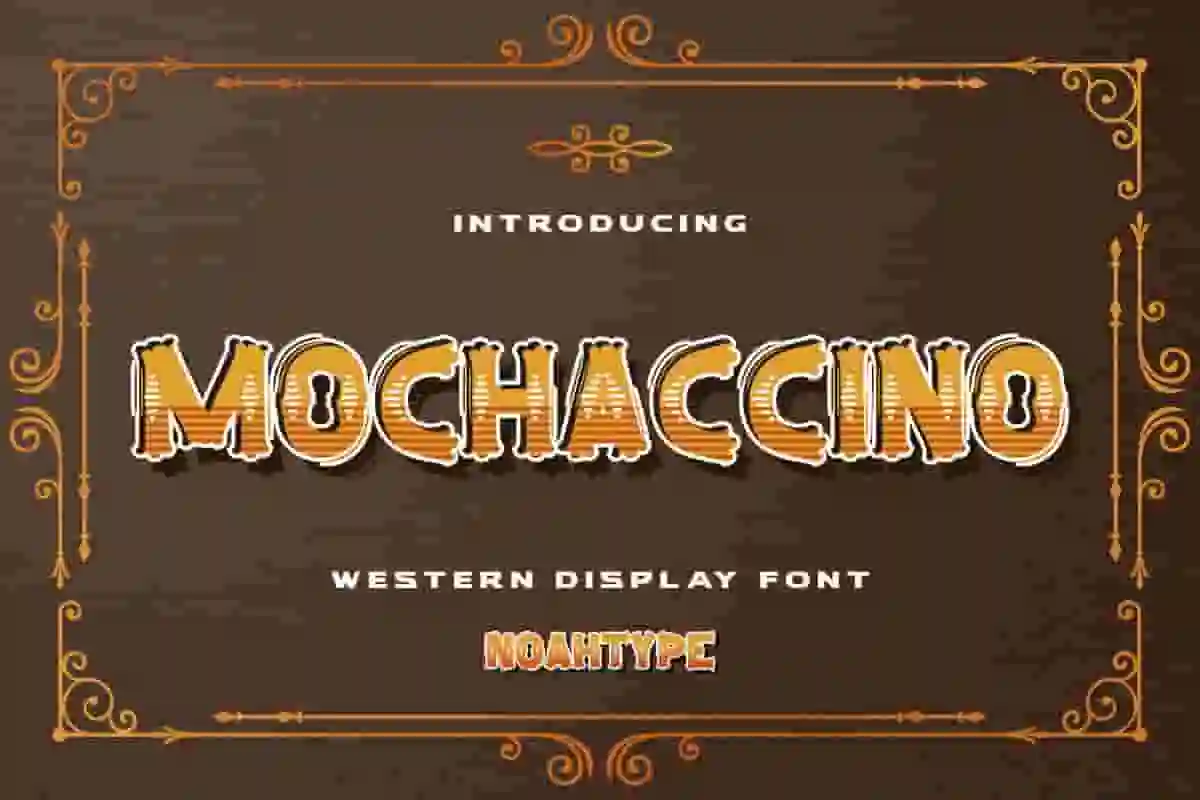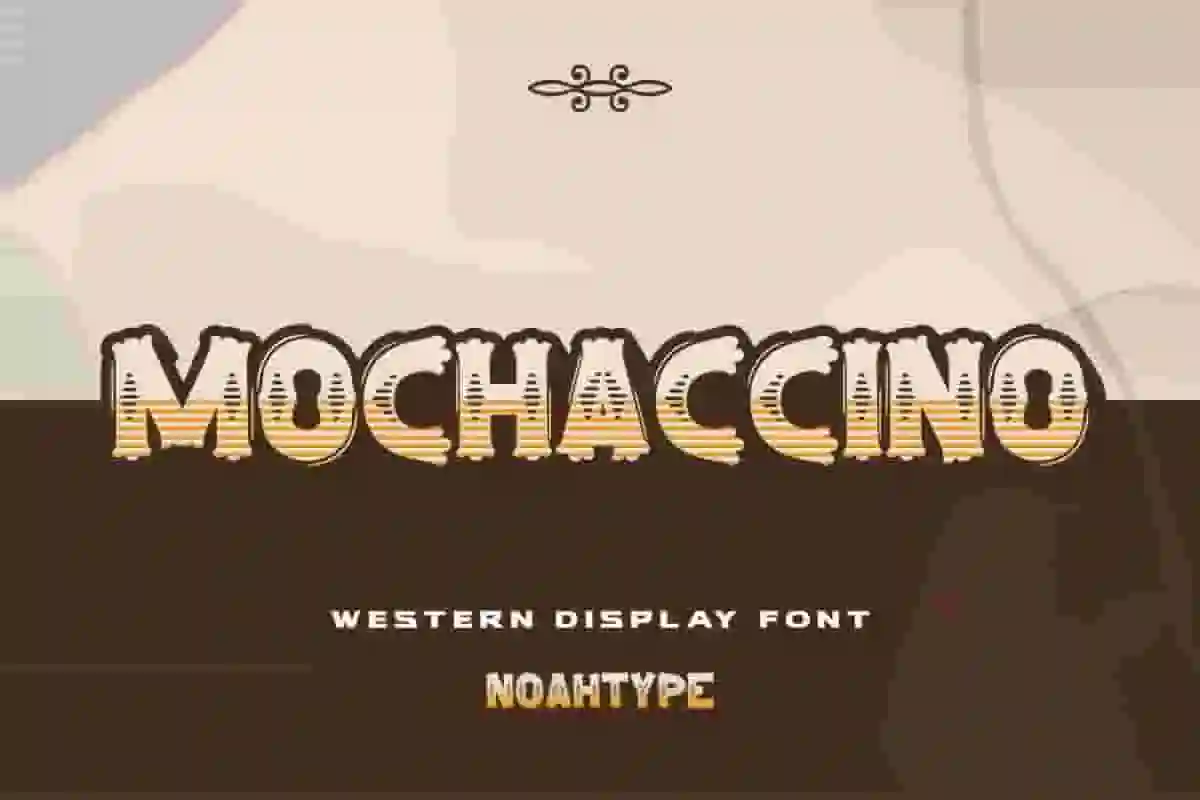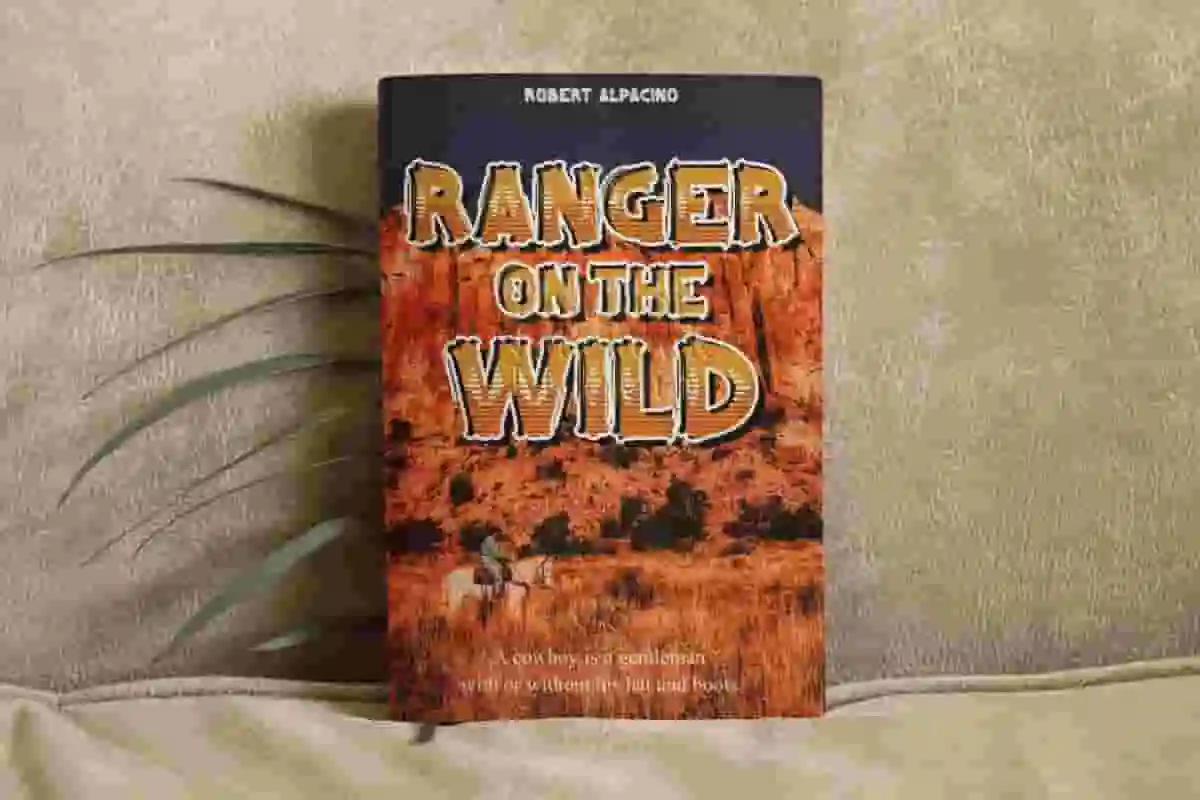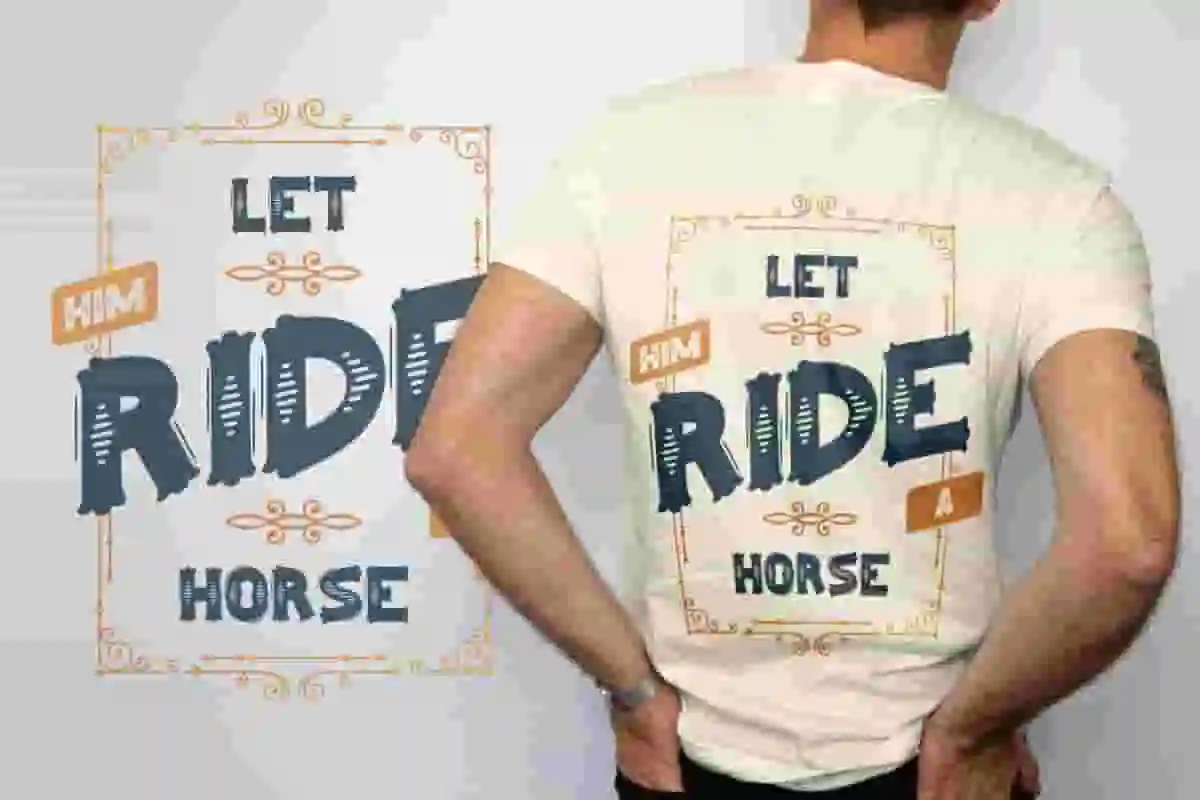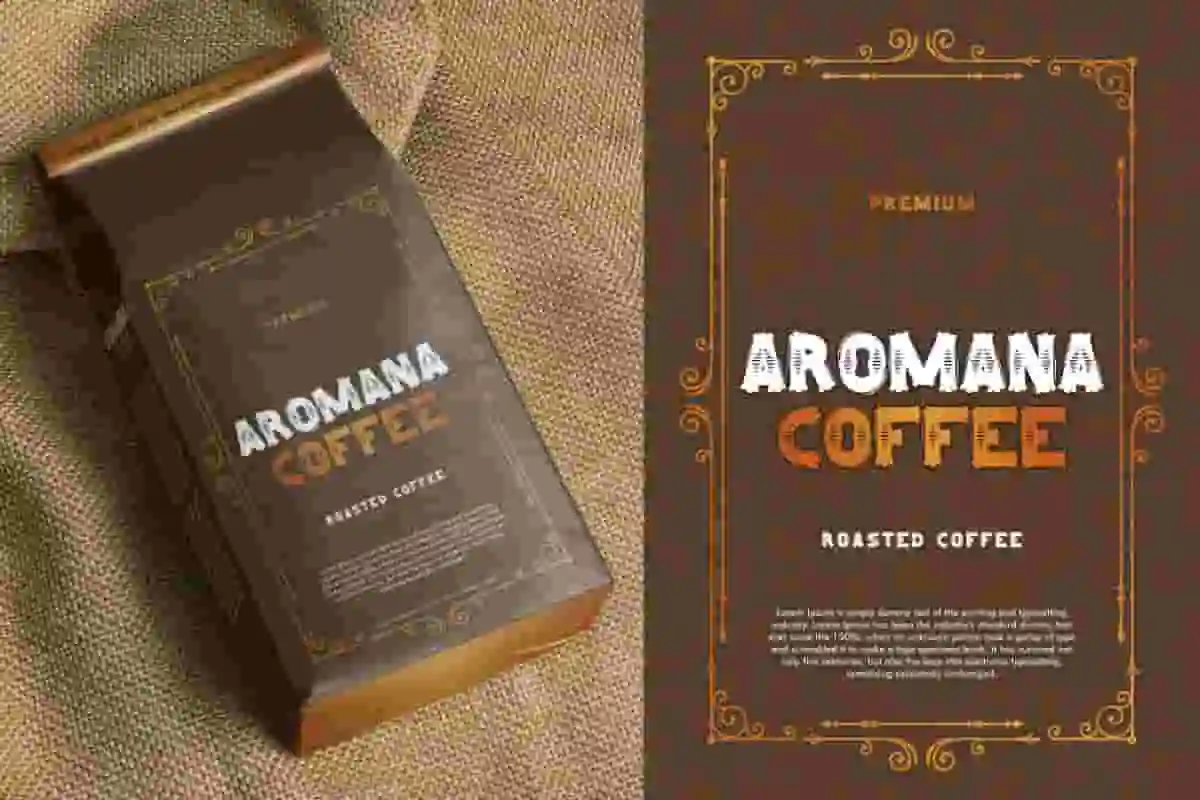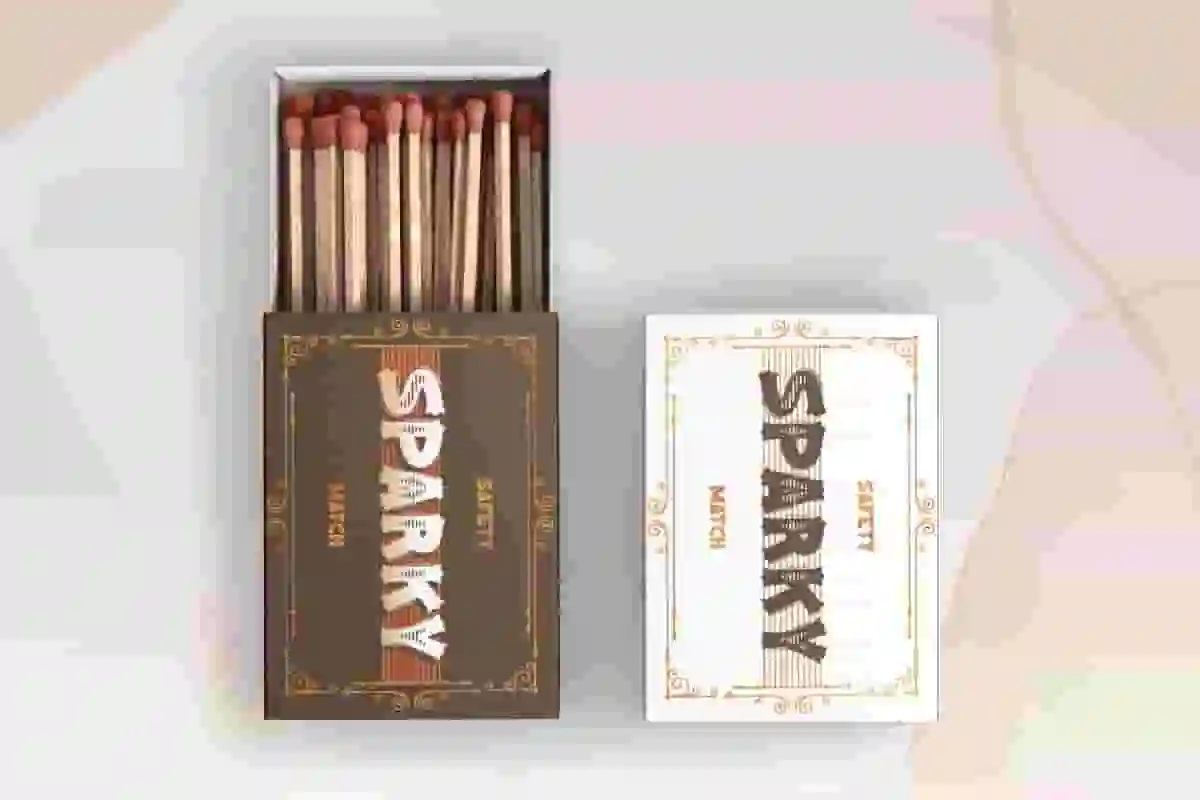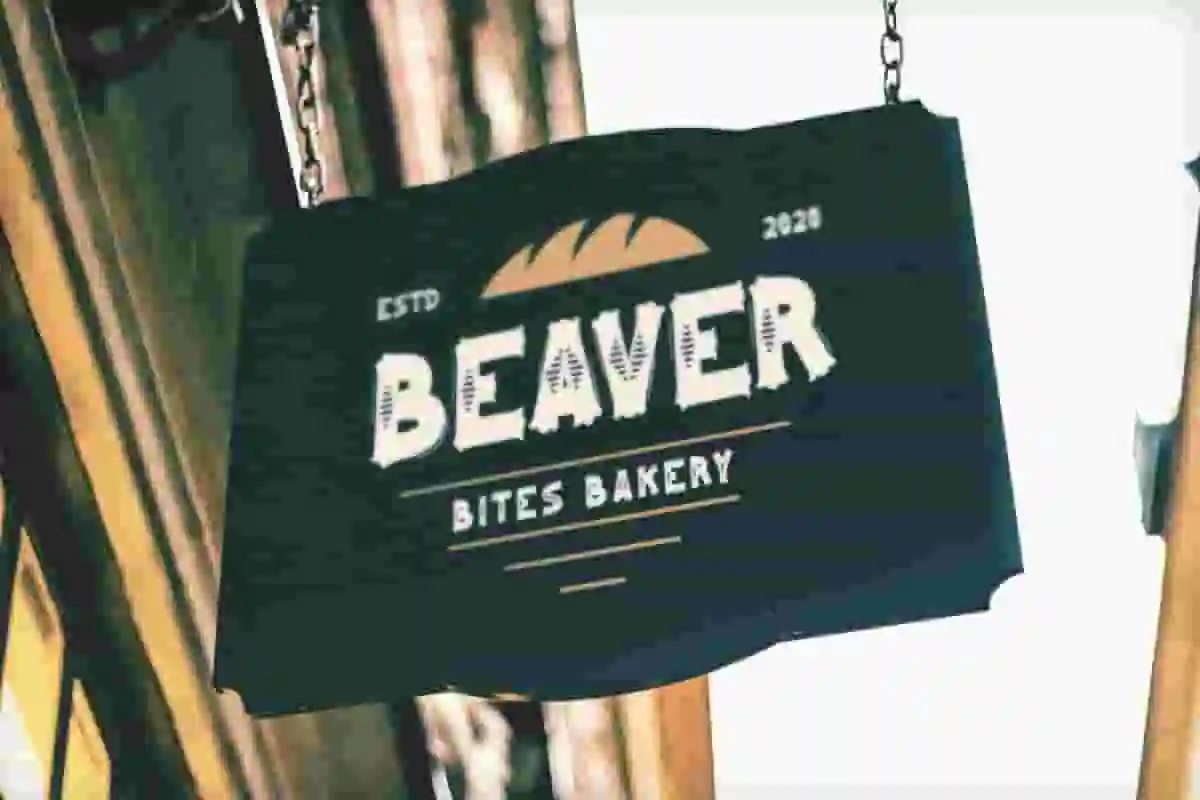
Mochaccino Font is a display font from NoahType Studio, with western sheriff cowboy style theme. This font has an American vintage retro vibes that can bring back old memories. It will be amazing for any project : festival, comic, fashion style, cafe, resto, music and many more. Mochaccino Font includes full set of All caps Basic Characters, Numerals and Punctuation.
From western movie titles to country music album covers, from artisan product labels to festival posters, this font brings a powerful visual impact to your creative work. Mochaccino Western Display Font is not just a typeface – it’s a storytelling tool that adds mood, atmosphere, and personality to your designs.
Whether you’re creating a country music album cover, a ranch-themed café menu, or a Wild West festival flyer, this font delivers an unforgettable visual impact.
With its bold personality and timeless Western vibe, Mochaccino isn’t just a font — it’s a statement. Let your words ride into the sunset with style, confidence, and character.